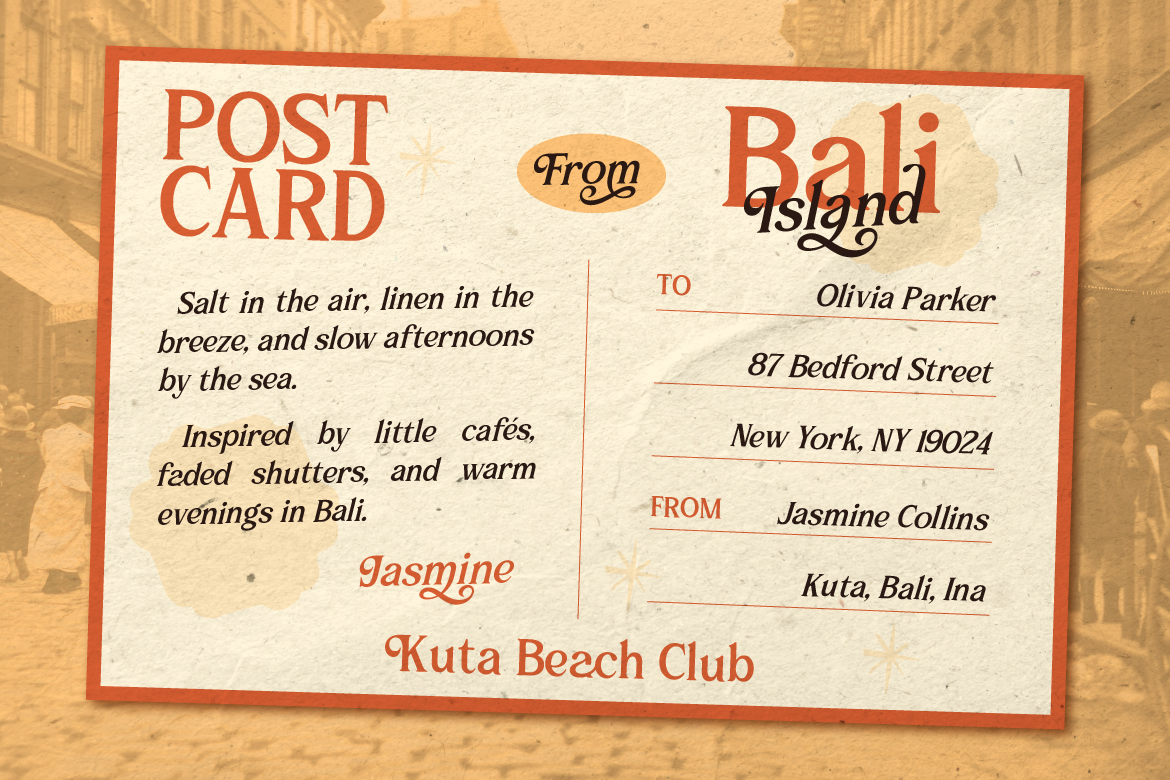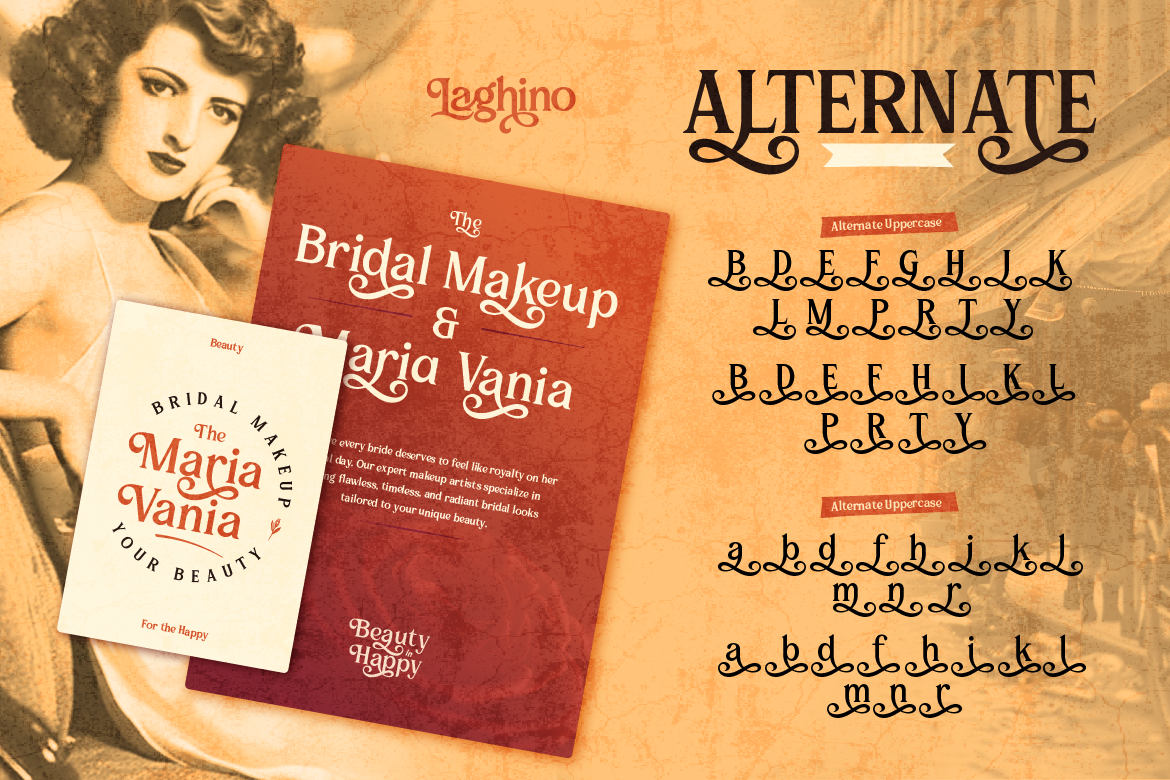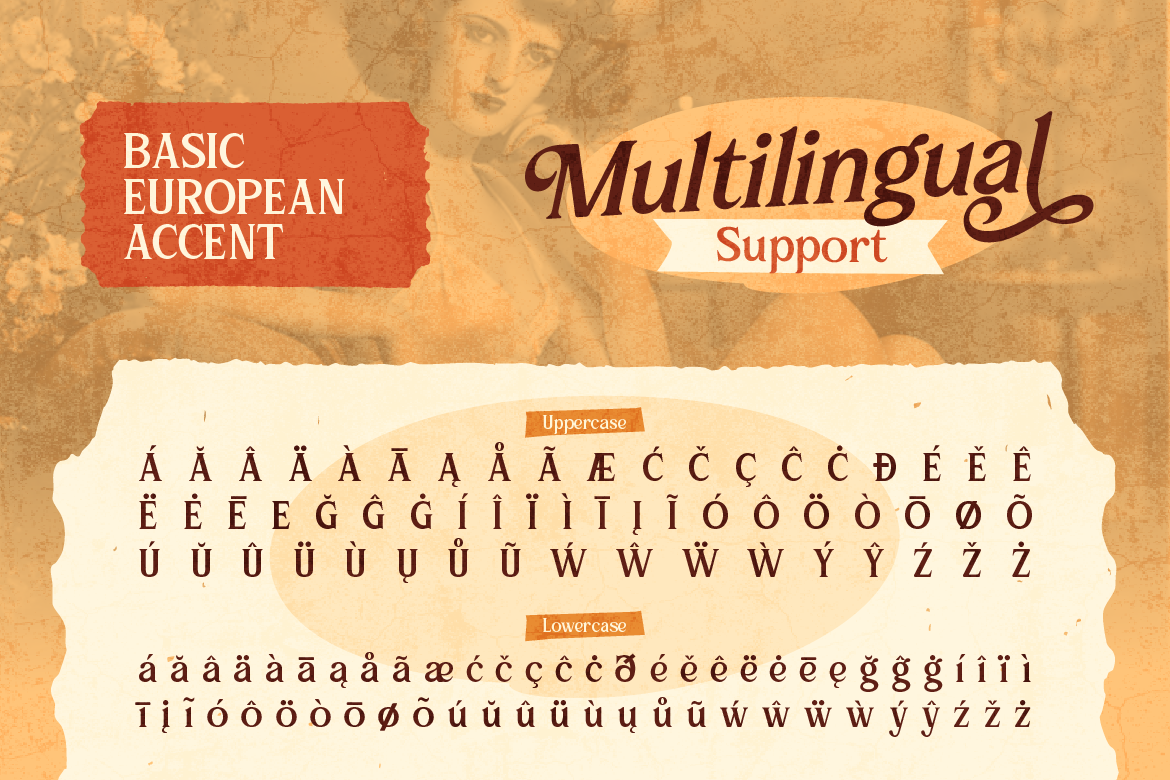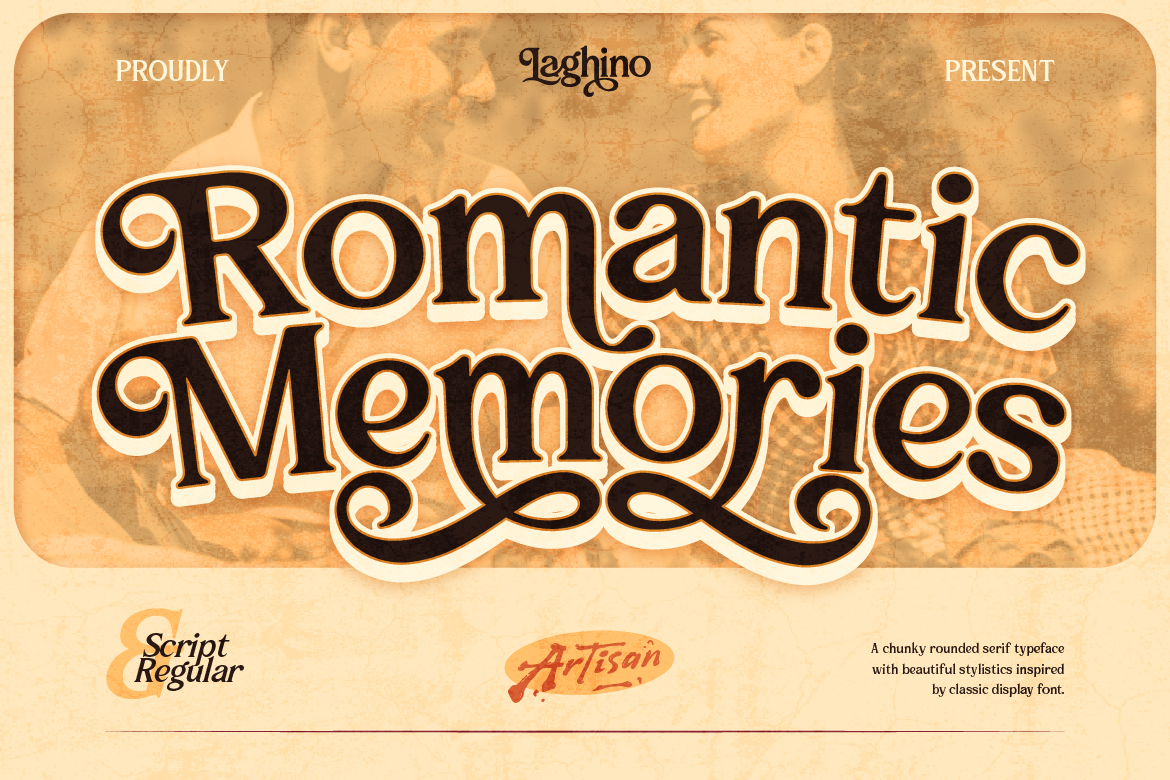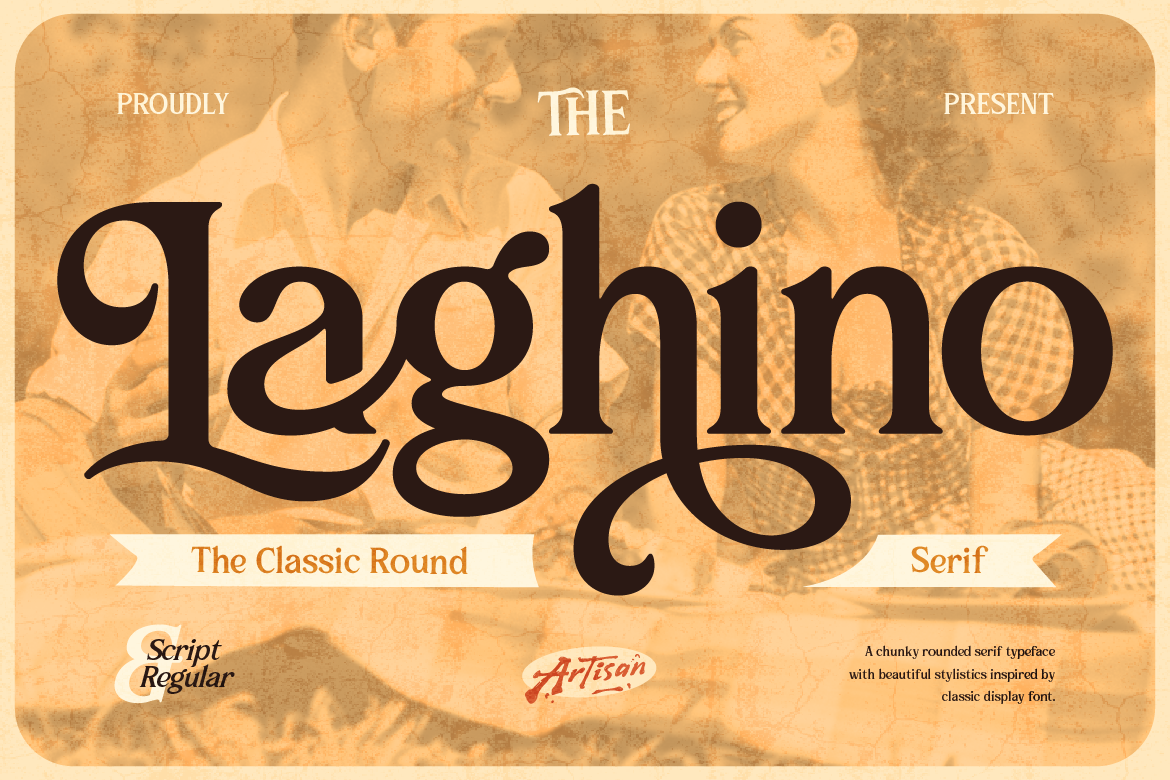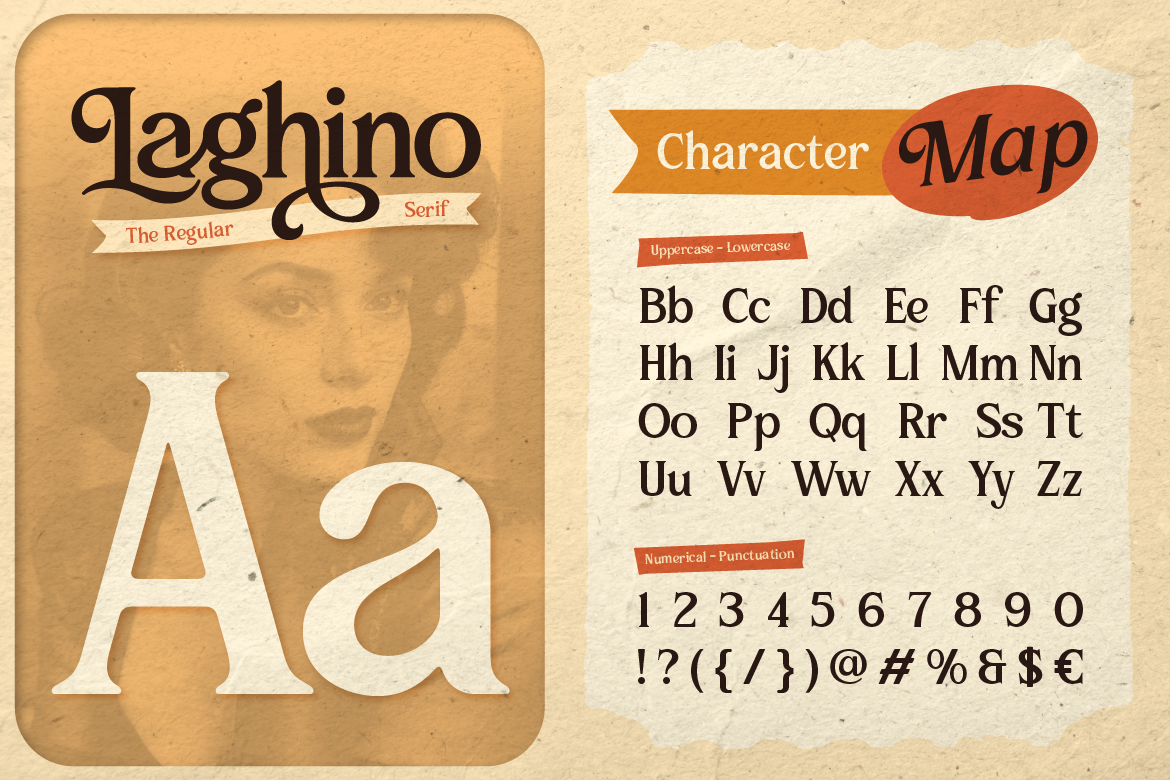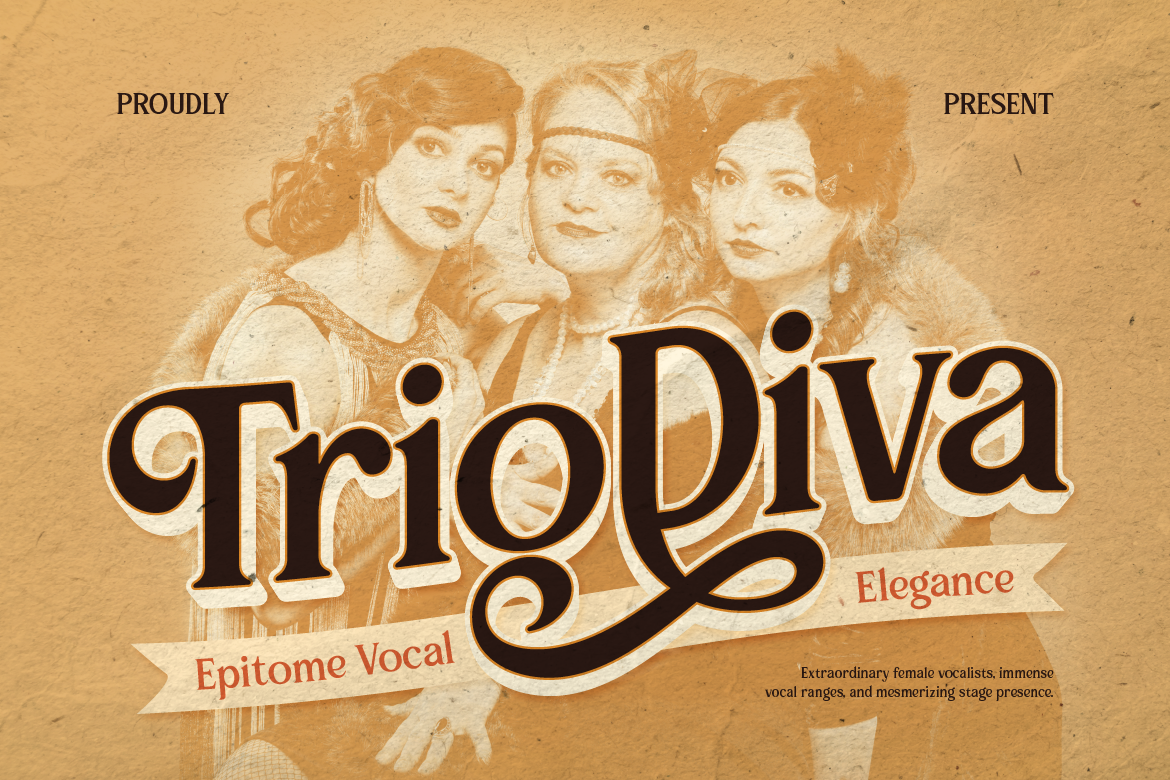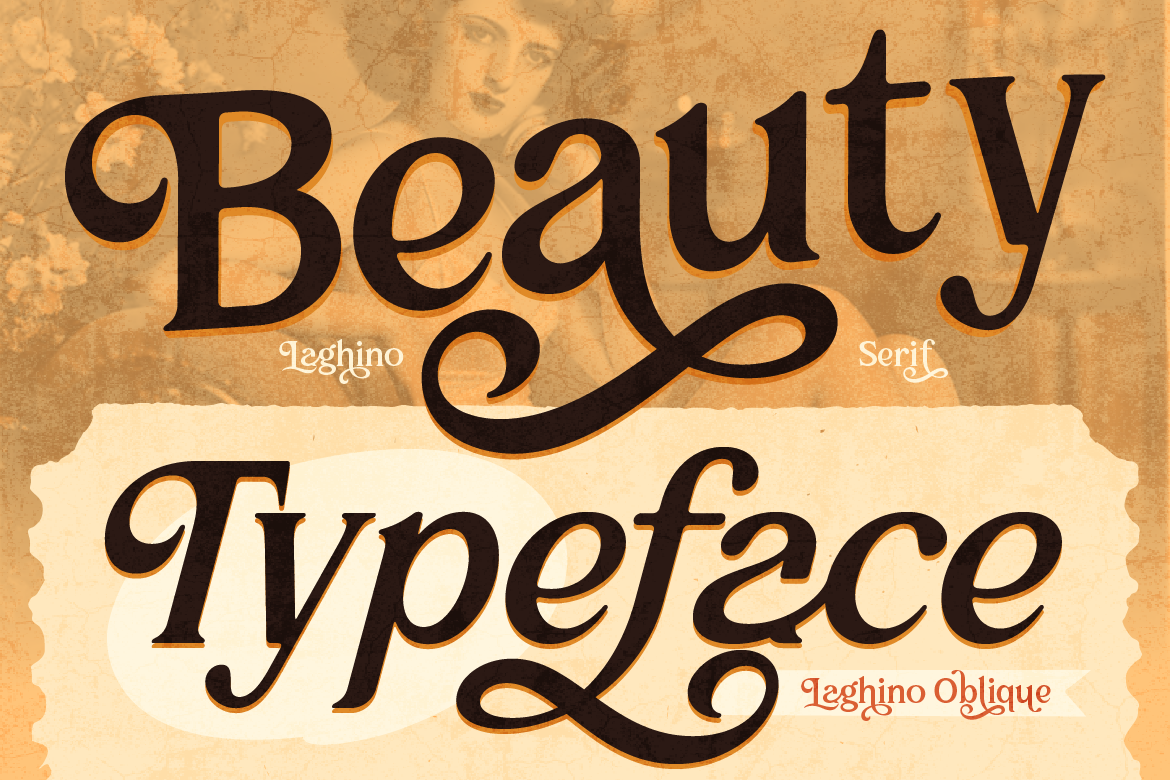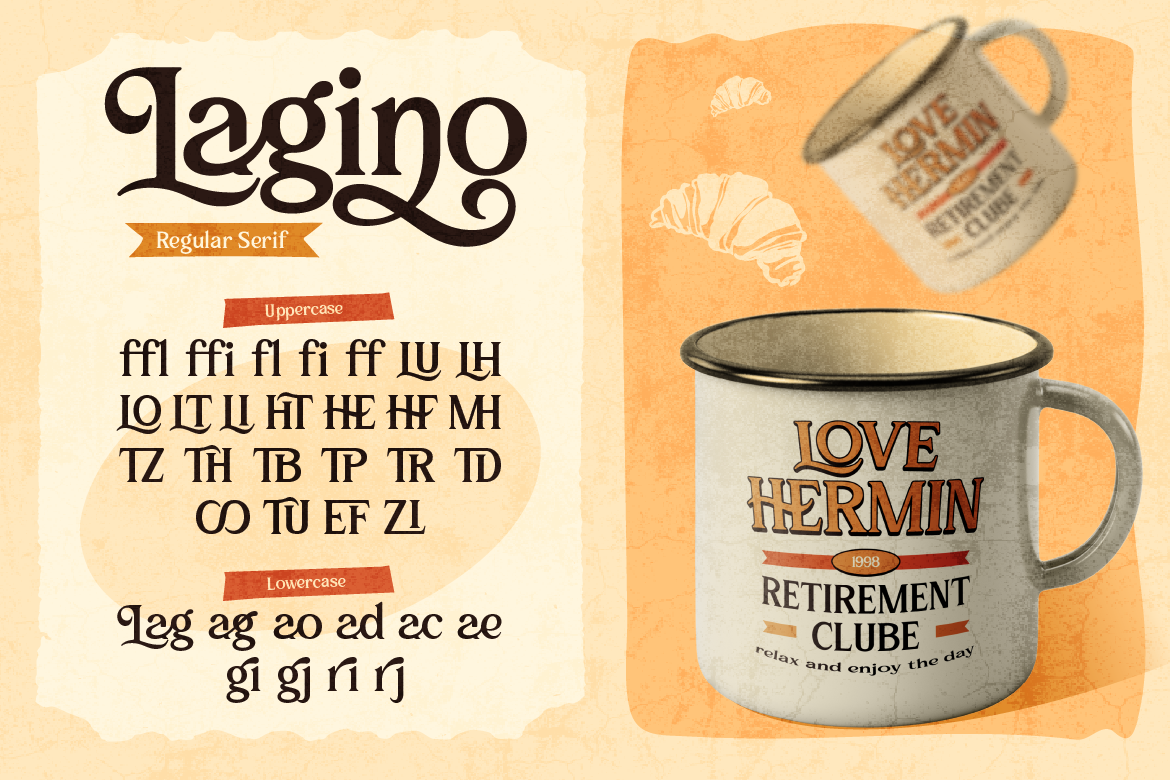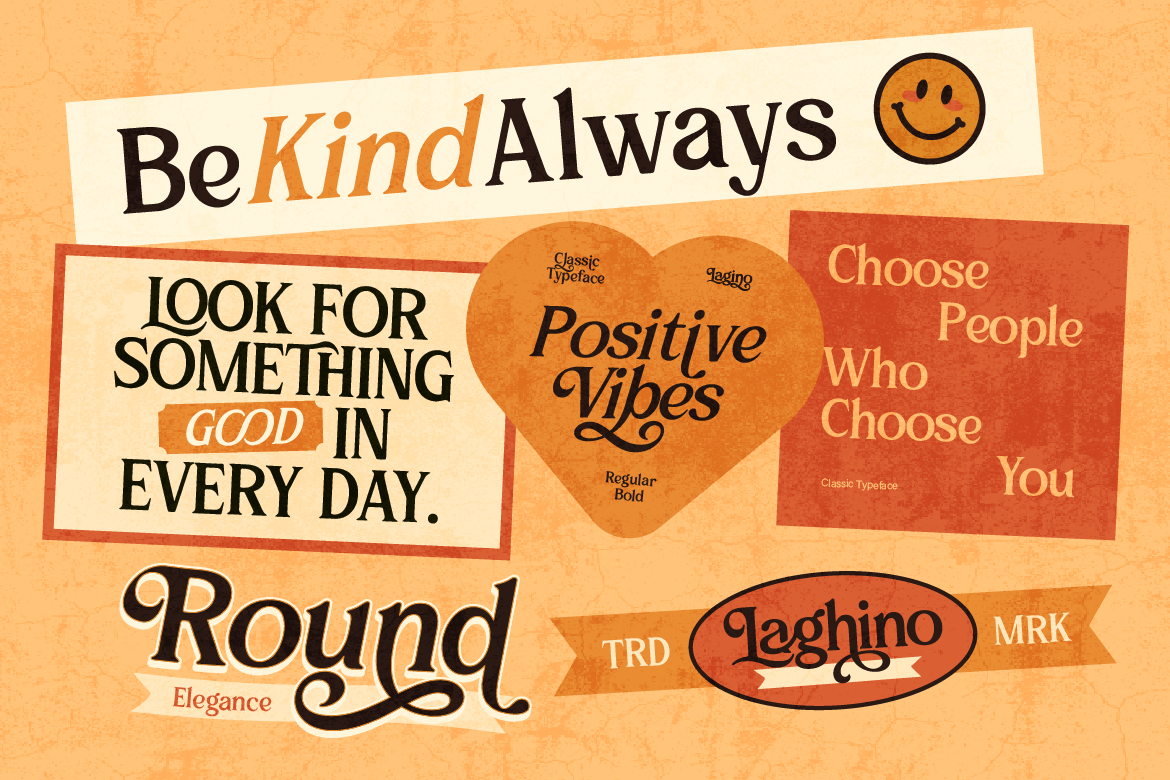
Laghino – Classic Round Font
Regular
Oblique
Description
Laghino, a chunky rounded serif typeface with beautiful stylistic details inspired by classic display fonts. With its bold curves, soft rounded terminals, and elegant decorative flicks, Laghino brings a warm, nostalgic charm to any design project while staying clean and highly legible.
Perfect for branding, logotypes, packaging, editorial headlines, posters, apparel, and vintage-inspired designs, Laghino combines the friendliness of a rounded serif with the timeless character of classic typography. The gentle curves and playful swash details give every headline a distinctive, handcrafted feel.
Laghino comes in two complementary styles — Regular and Oblique — giving you the flexibility to mix and match for dynamic layouts, badges, and branding systems.
• Chunky rounded serif design with a classic, retro-inspired feel
• 2 styles: Regular & Oblique
• Full uppercase and lowercase character set (A–Z, a–z)
• Numerals (0–9) and essential punctuation & symbols
• Multilingual support (standard Latin glyphs)
• Clean, legible shapes that work beautifully at both large display sizes and mid-size headlines
• Great for logos, branding, posters, product packaging, greeting cards, wedding stationery, apparel, and social media graphics
Perfect for:
• Branding & logotypes
• Poster & editorial headlines
• Product packaging
• Apparel & merchandise design
• Social media graphics
• Greeting cards & invitations
• Vintage & retro-themed projects